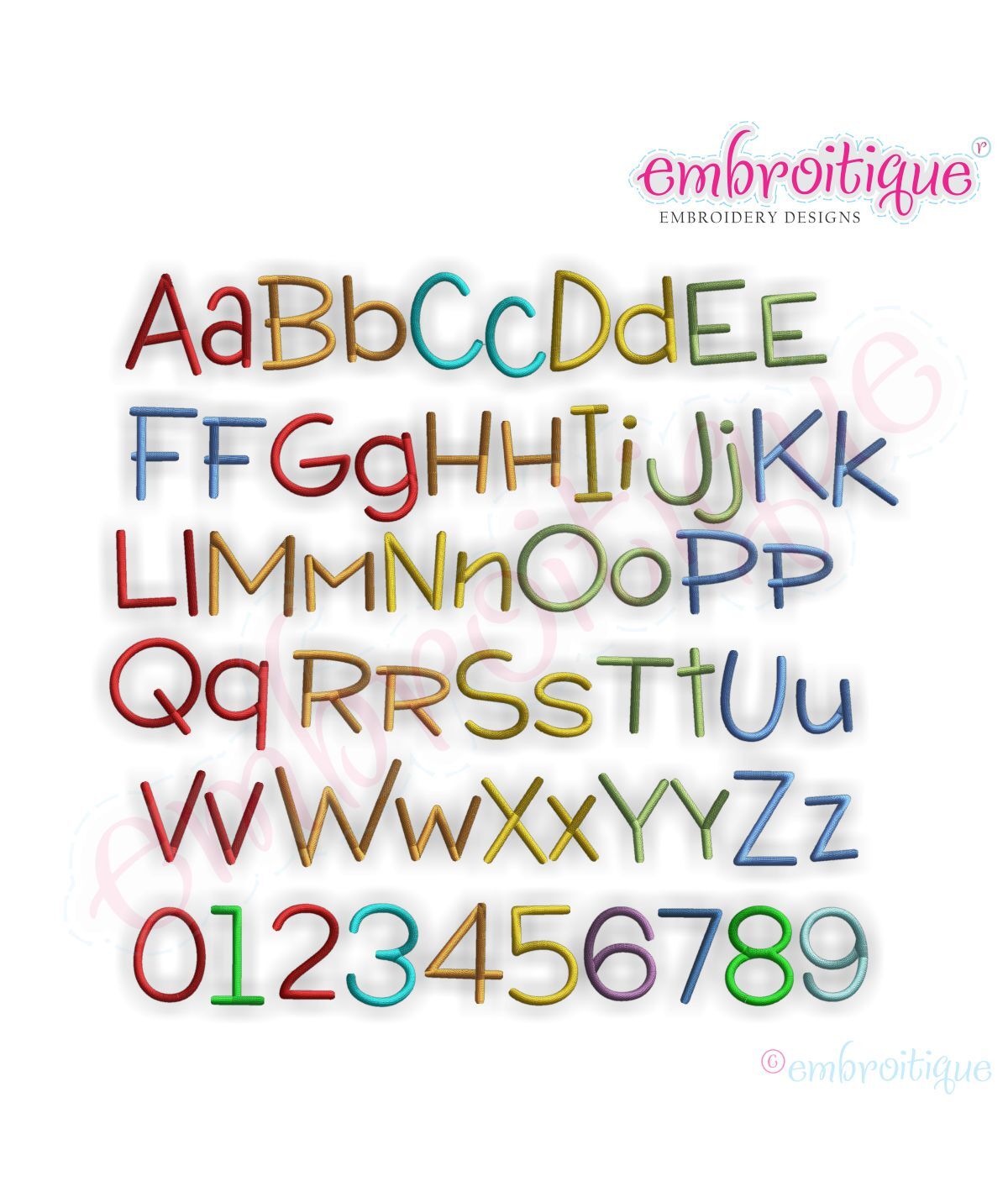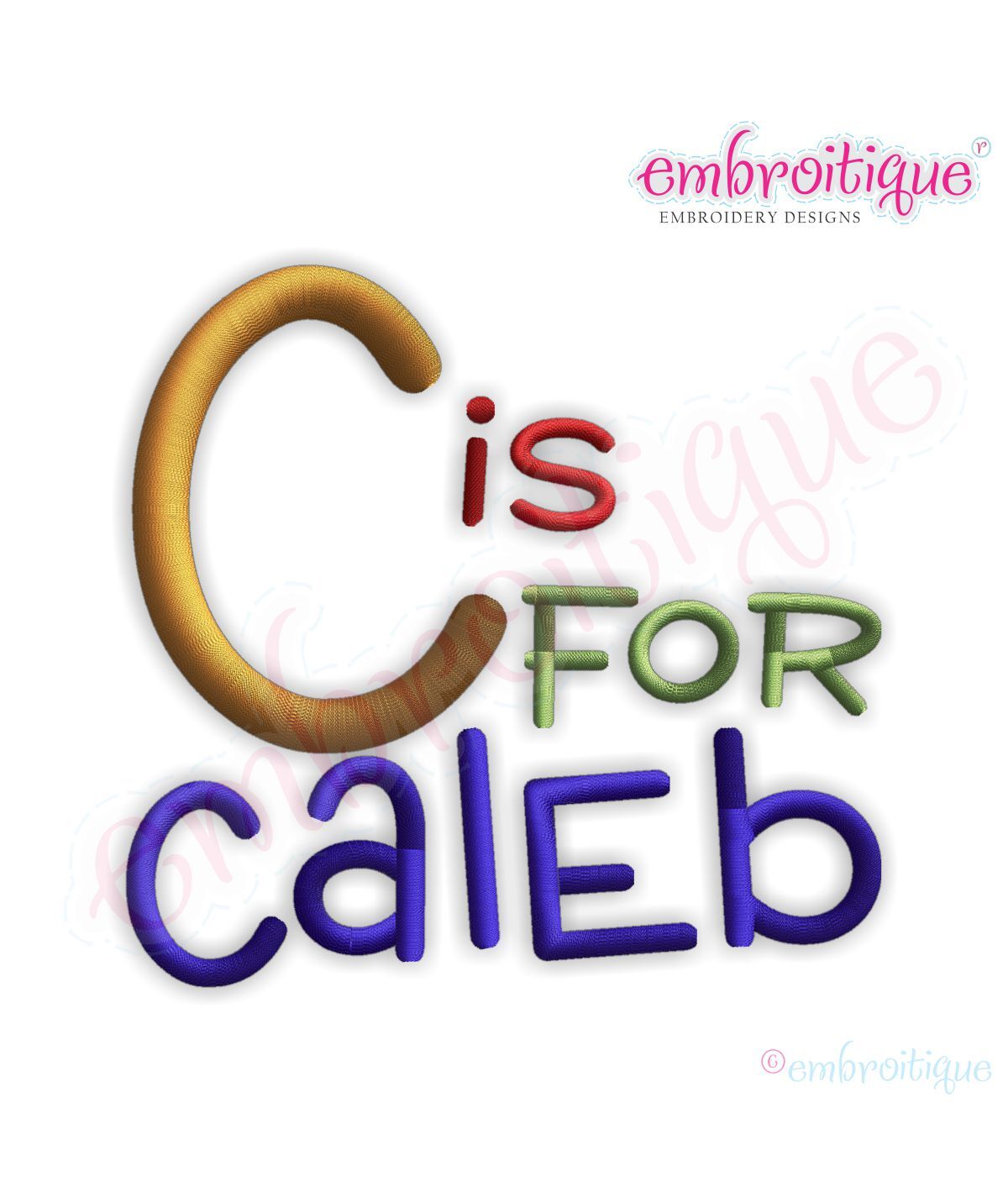
Caleb Monogram Font Set - Alphabet - BX files included
This is such a great monogram set! Perfect for boys and girls! You will receive a full set of letters (upper & lower case) and numbers (0-9) in each size listed.